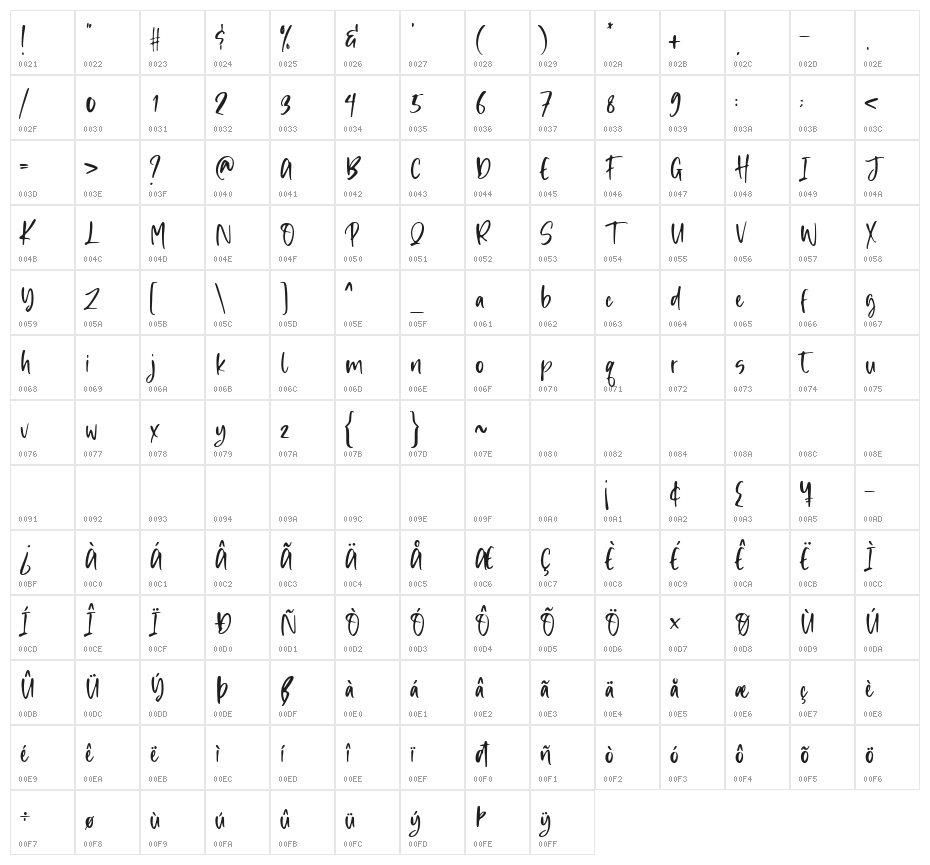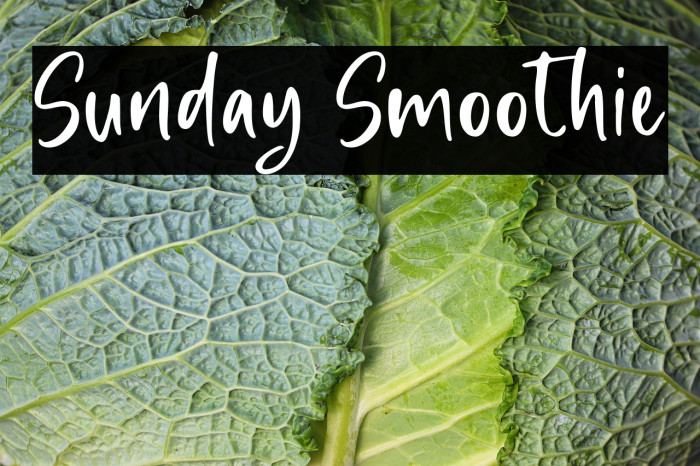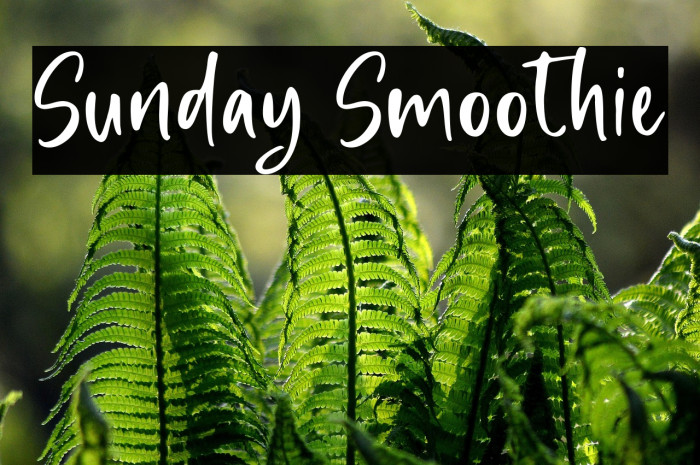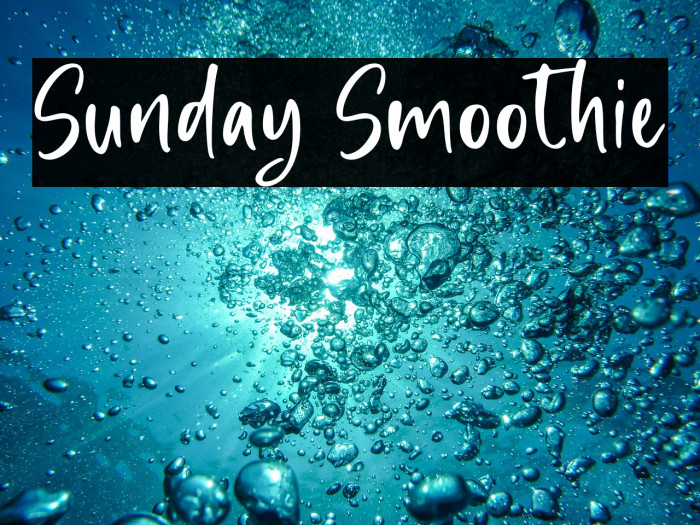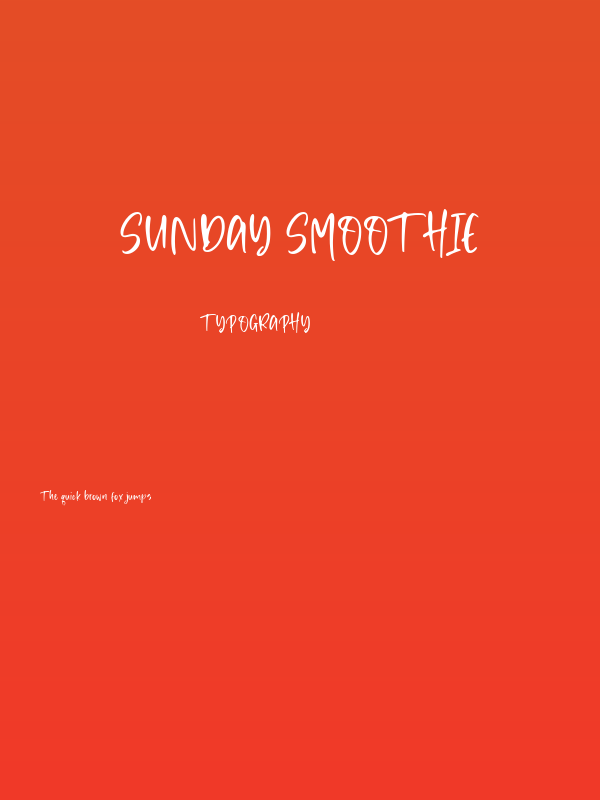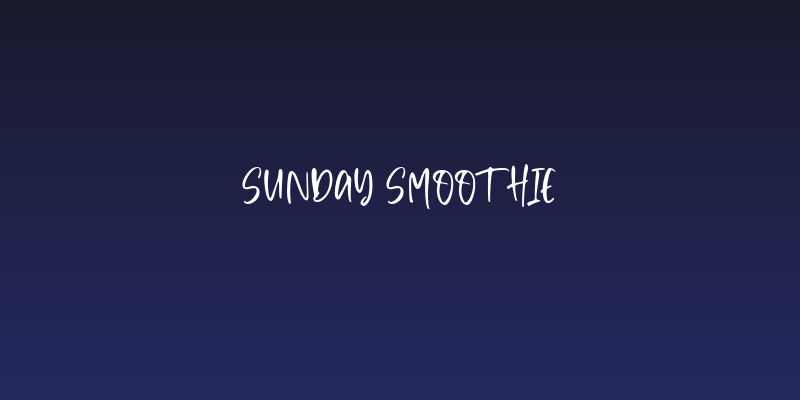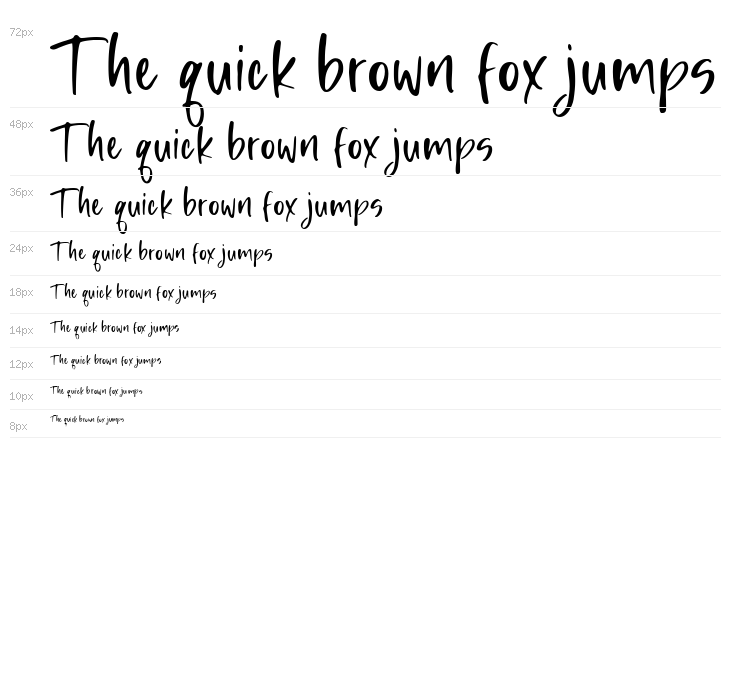
Sunday Smoothie Font
Sunday Smoothie Description
This font exudes a playful and casual vibe, characterized by its handwritten style that mimics the fluidity and spontaneity of natural handwriting. The letters are slightly slanted, with varying stroke widths that add a dynamic and lively feel. The uppercase letters are bold and prominent, while the lowercase letters maintain a consistent flow, creating a harmonious balance. The numbers and special characters follow the same whimsical style, making the font versatile for various creative applications. Its informal and friendly appearance makes it suitable for projects that require a personal touch.
| Proposed Projects | Ideal for greeting cards, invitations, social media graphics, and branding projects that aim for a personal and approachable look. |